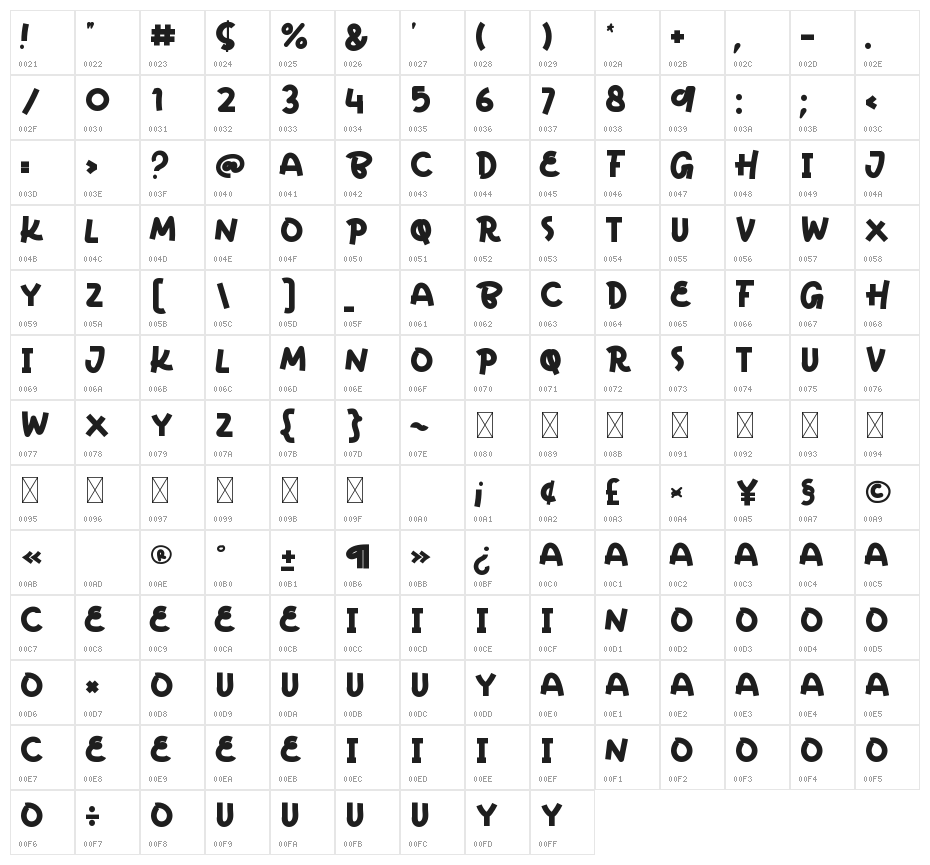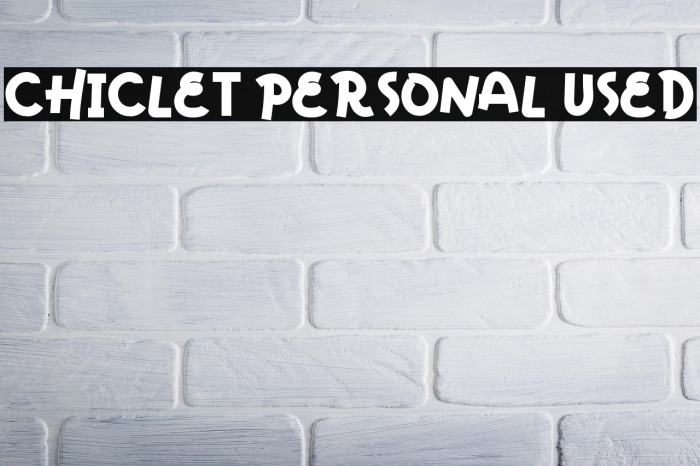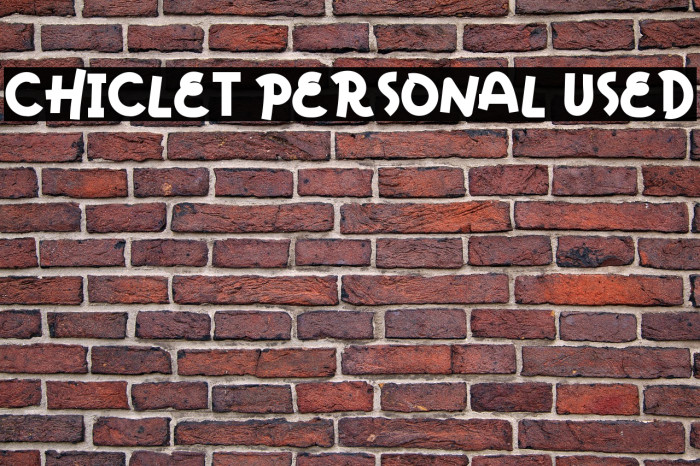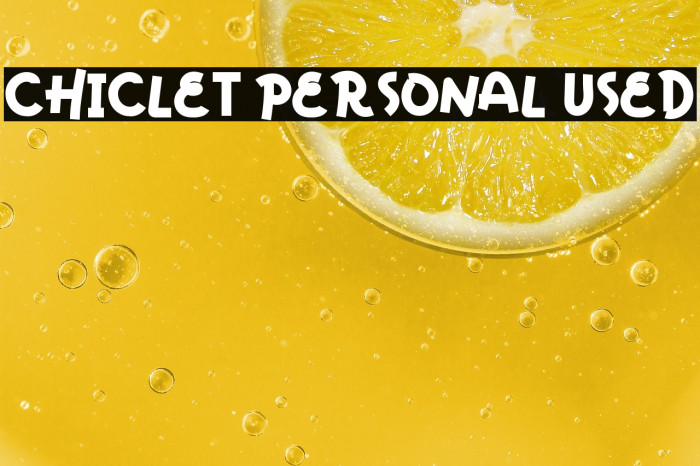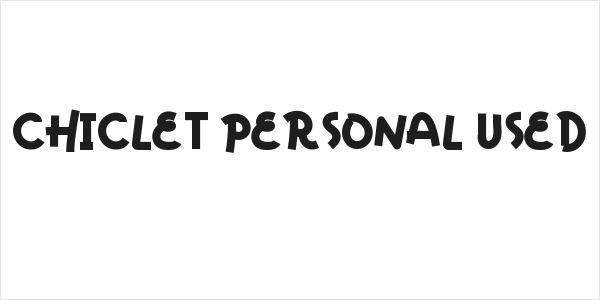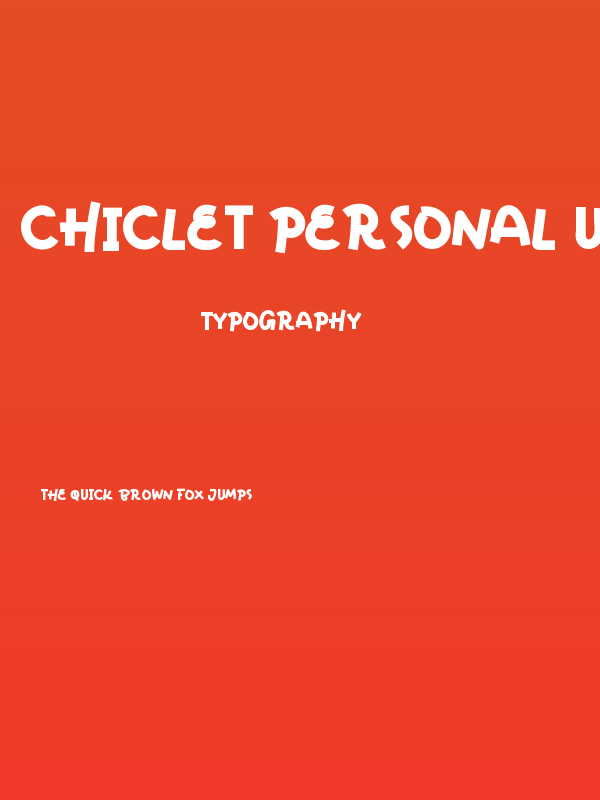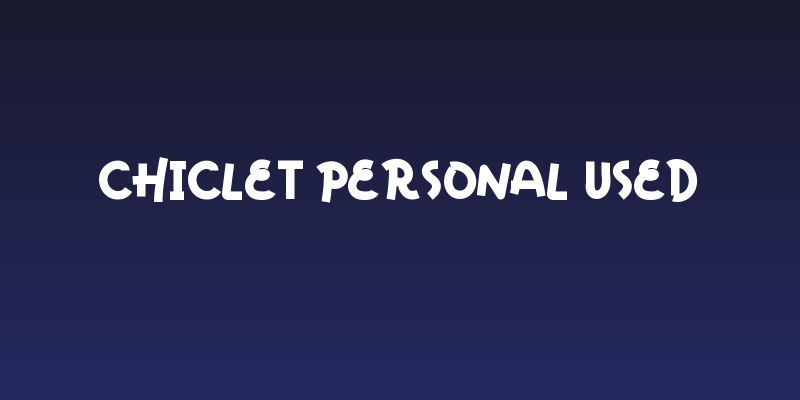
Chiclet Personal Used Font
Chiclet Personal Used Description
Playful, bold sans-serif font with irregular, chunky letterforms and a hand-drawn, cartoon-like appearance. The strokes are thick and rounded, with varying angles and whimsical shapes, giving it a lively and informal feel.
| Overall Style | Playful, Decorative, Informal |
| Use Case | Headlines, Posters, Logos, Children's materials |
| Proposed Projects | ChildrenΓ’β¬β’s books, party invitations, comic titles, playful branding, posters, greeting cards. |